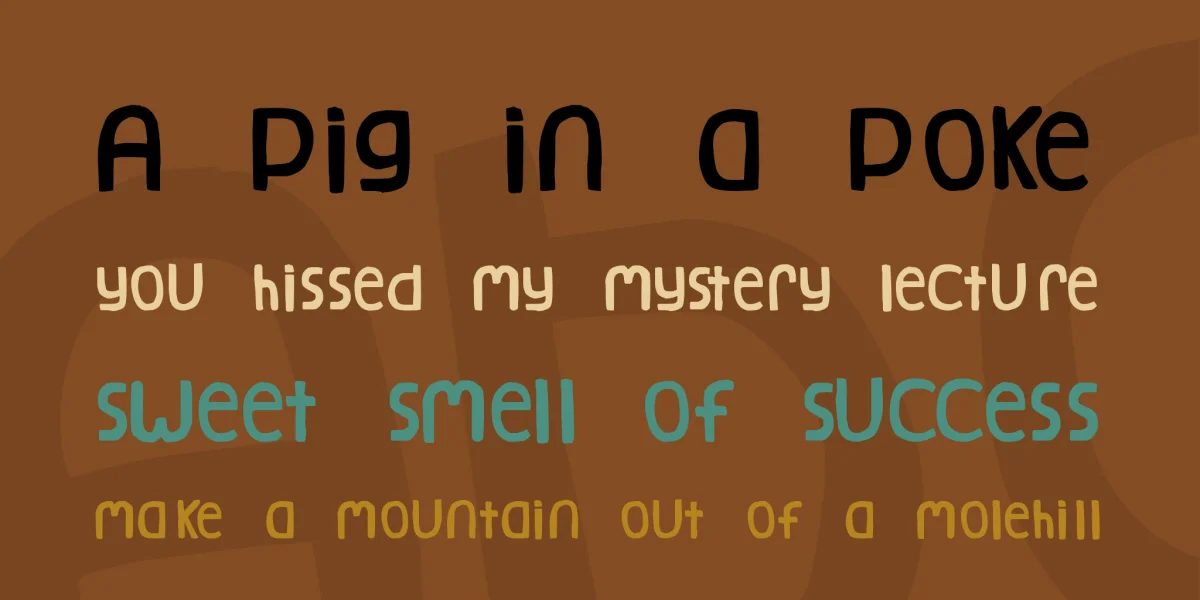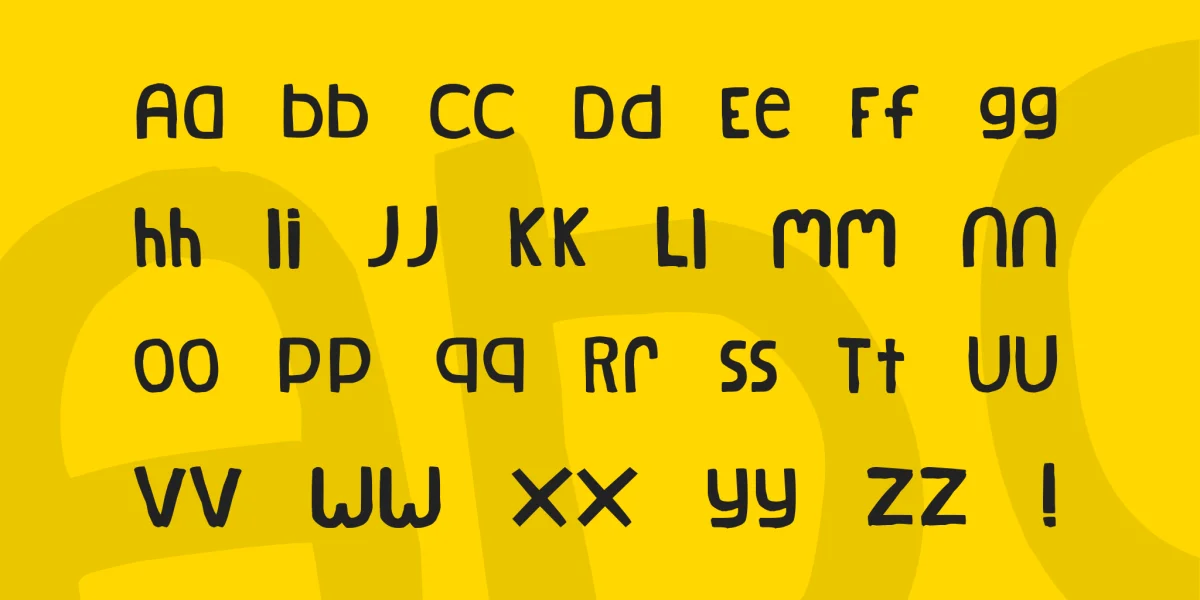
(Caps, Lowercase (lots of repetiton, but some are different), some punctuation) is a rather simple font, following the design philosophy that the absence of the expected is as striking as the presence of the unexpected. This would work for body text, but be careful as there are no numbers (see, lack of the expected! ;)) Hand kerned -- I'm never doing that again! (2 November 1997)